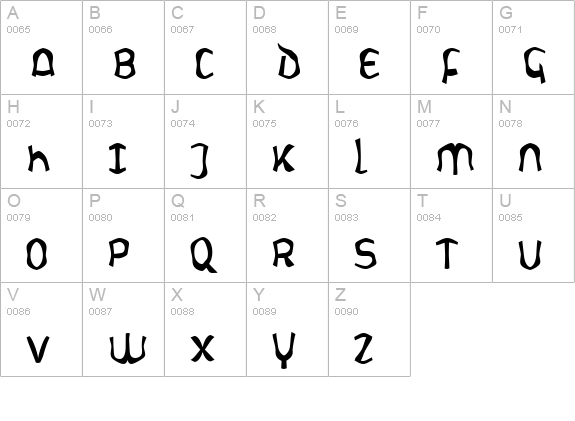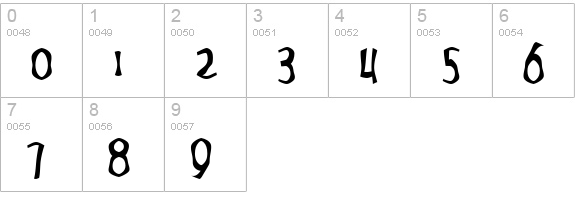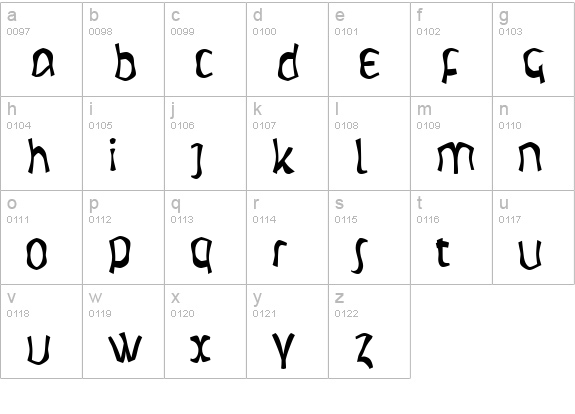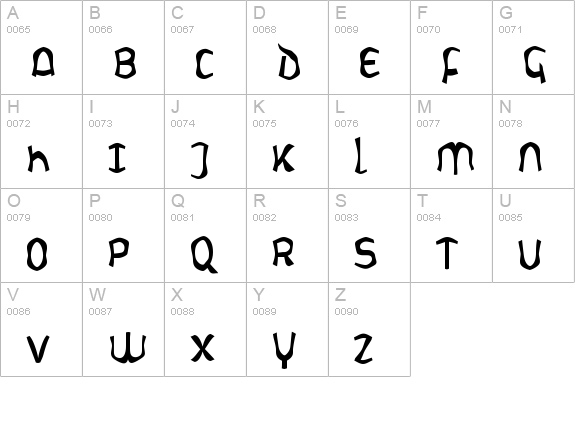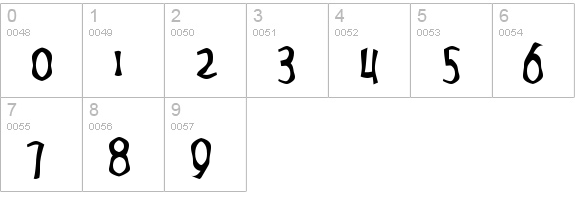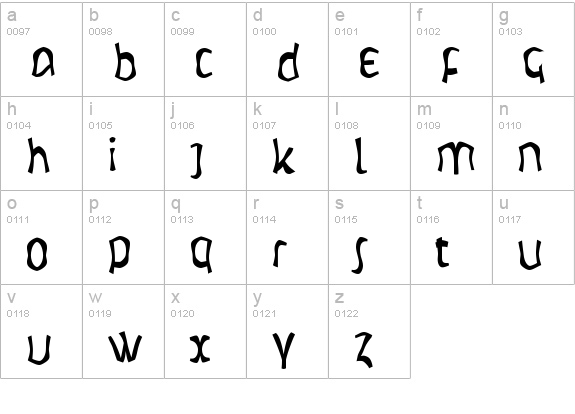
LetunicalWarp Font Details
LetunicalWarp is a stunning and versatile font that will add a touch of elegance and sophistication to any project. With its unique and captivating design, this font is perfect for creating eye-catching headlines, sleek logos, and stylish branding materials. Featuring a combination of sleek lines and bold curves, LetunicalWarp exudes a sense of modernity and creativity. Its carefully crafted letterforms are both legible and visually appealing, making it suitable for a wide range of design applications. Not only does LetunicalWarp offer a visually striking aesthetic, but it also comes with the added benefit of being free. That's right, this amazing font is available for you to download at absolutely no cost on FontsMarket.com. Now you can bring your design visions to life without breaking the bank. Whether you're a professional designer or a creative enthusiast, LetunicalWarp is sure to become a staple in your font collection. Its versatility allows it to effortlessly adapt to various design styles, ensuring that your projects will always stand out from the crowd. So why wait? Unlock your creative potential and elevate your designs with LetunicalWarp. Download this incredible font for free at FontsMarket.com and let your imagination soar.